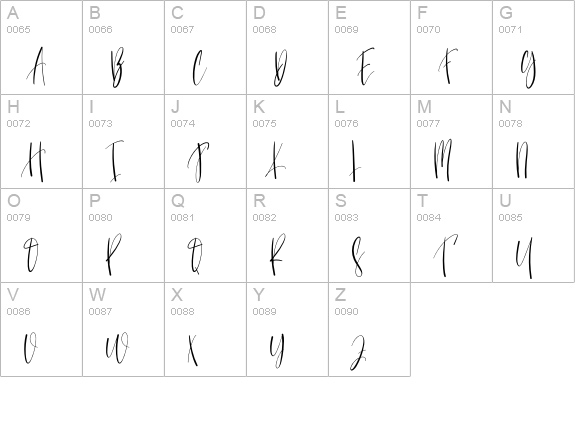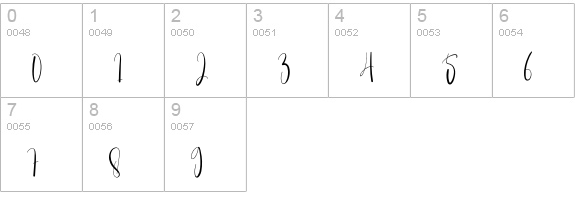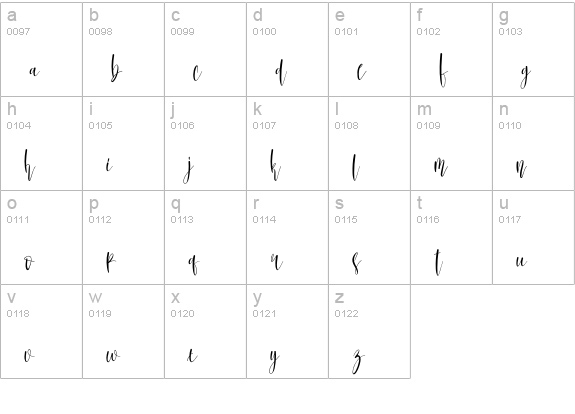
Thanksgiving2 is a free for personal use font in the Script > Handwritten category, designed by scratchones. It has been downloaded 0 times and is available for Windows, Mac and Linux.
Thanksgiving2 font is a charming and festive typeface perfect for adding a touch of warmth and whimsy to your Thanksgiving-themed projects. With its playful curves and elegant script style, this font captures the essence of the holiday season and exudes a sense of gratitude and joy. Whether you are designing greeting cards, invitations, menus, or social media graphics for Thanksgiving celebrations, Thanksgiving2 font is sure to bring a touch of festive flair to your designs.